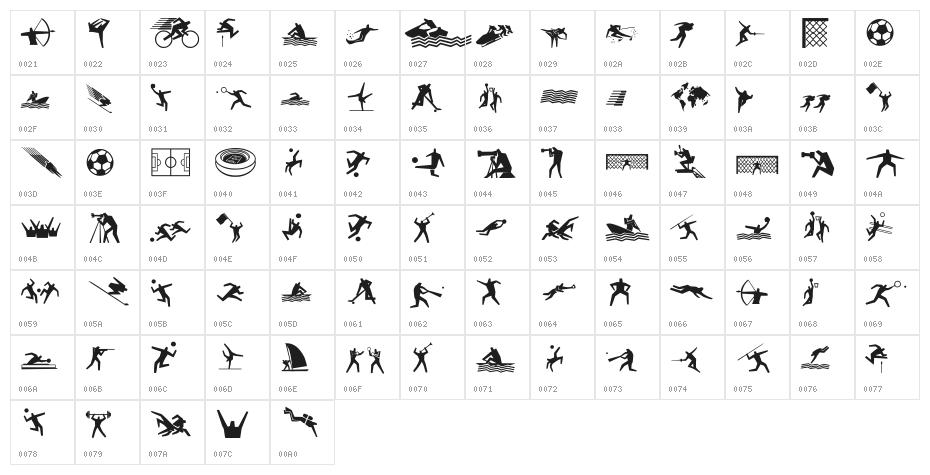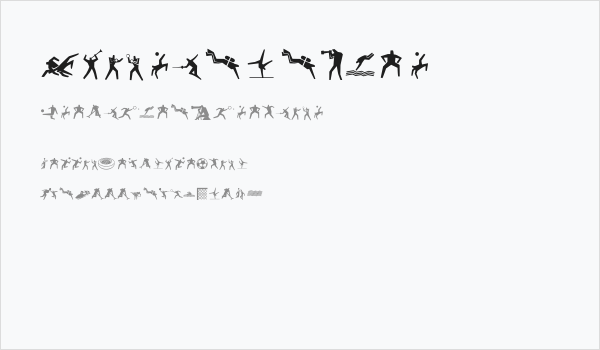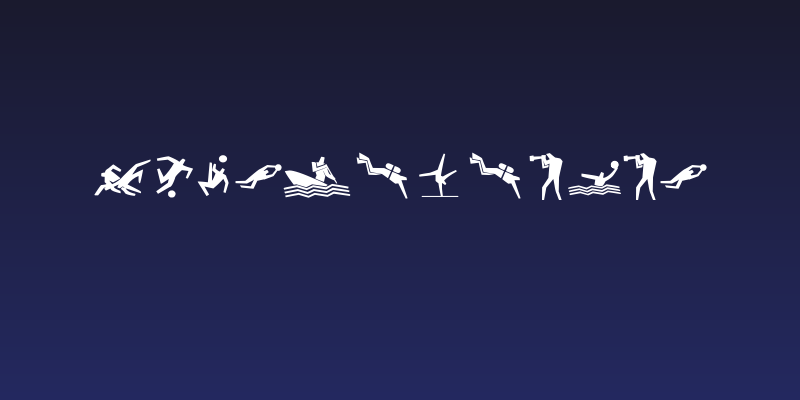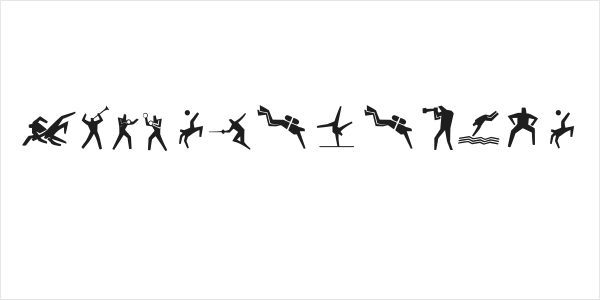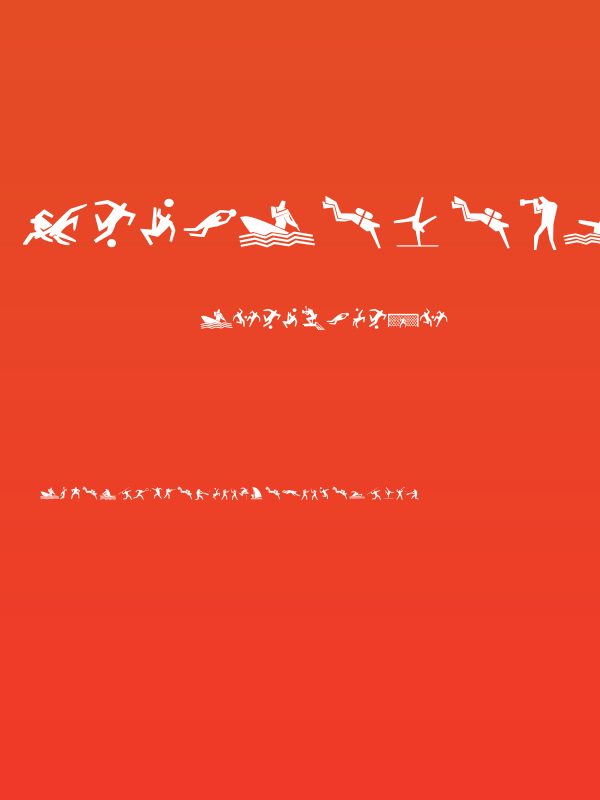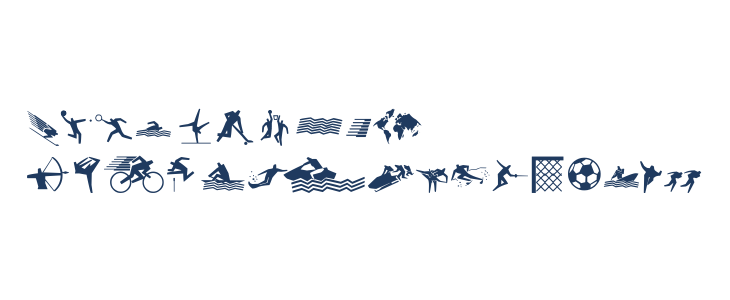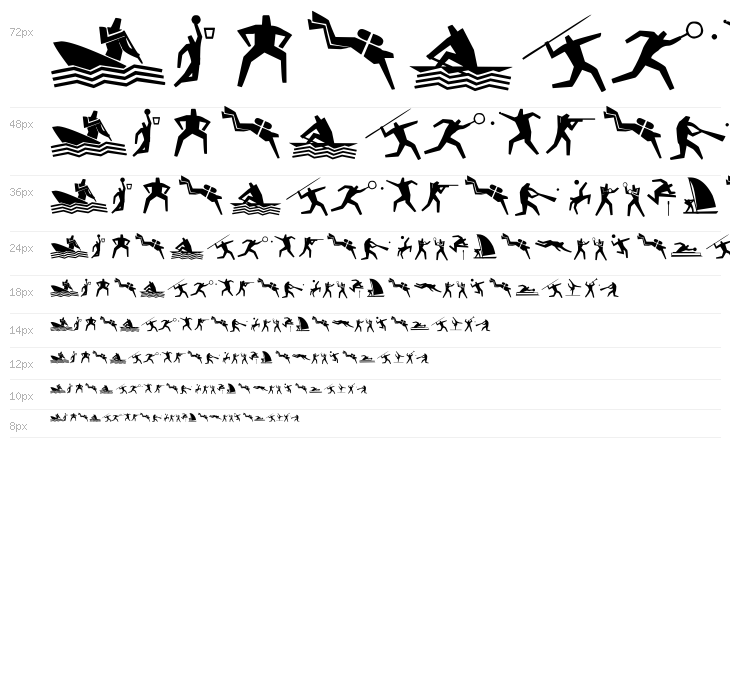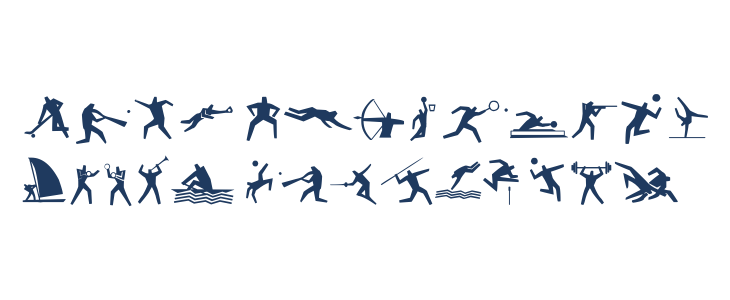
Sport 4 Ever Font
Sport 4 Ever Description
A pictogram-based dingbat font featuring stylized silhouettes of athletes participating in various sports and activities, rendered in bold, solid black shapes with minimal detail for easy recognition and visual impact.
| Overall Style | Decorative, Modern, Minimalist |
| Use Case | Icons, Infographics, Themed graphics, Event branding |
| Proposed Projects | Sports event posters, infographics, educational materials, activity schedules, themed invitations, signage. |